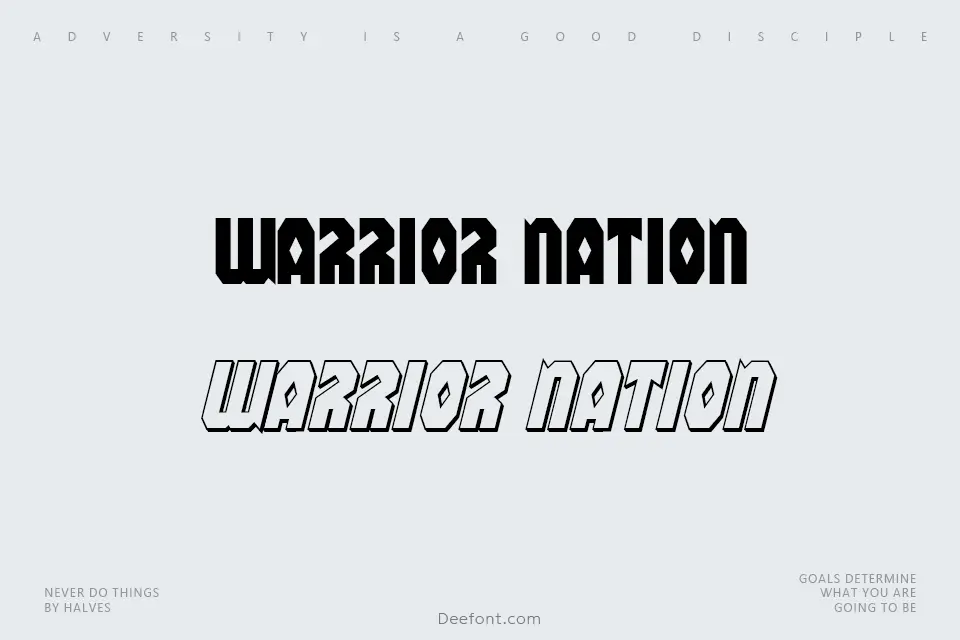
Warrior Nation Font Family
Warrior Nation Font Family presents a bold, military-inspired typeface family designed for maximum visual impact. This comprehensive collection features 19 stylistic variants including laser-cut outlines, gradient fills, 3D extrusions, and condensed/expanded widths. The base design combines angular geometric shapes with subtle decorative notches, evoking tactical insignia and sports team aesthetics. Versatile enough for both headlines and logos, it offers coordinated italic versions across all styles for dynamic typographic pairings. The font’s aggressive personality makes it particularly effective for action sports branding, movie posters, and gaming interfaces. Characterized by clean vector construction and consistent stroke modulation, Warrior Nation balances decorative flair with functional readability across print and digital formats.